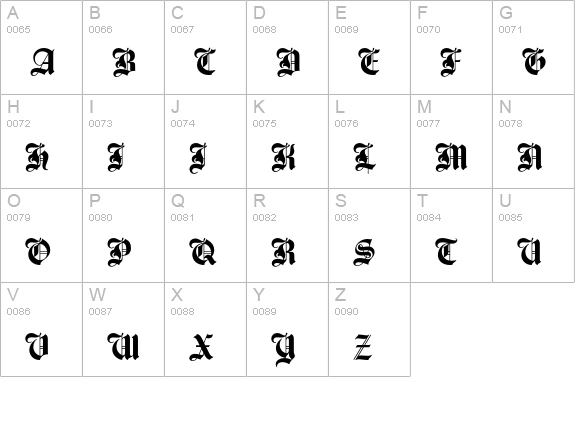
Agincourt Std Regular is the standard, neutral variant in the Agincourt typeface family \xE2\x80\x94 well suited to general body text, paragraphs, and standard typographic work.
Agincourt Std Regular font is a timeless and elegant typeface that exudes sophistication and class. With its classic and versatile design, this font is perfect for a wide range of design projects, from invitations to branding to editorial content. Its clean lines and balanced proportions make it easy to read and visually appealing. What makes Agincourt Std Regular font even more appealing is that it is free to download at FontsMarket.com. Whether you are a designer looking to add a touch of refinement to your work or a business owner in need of a professional font for your brand, Agincourt Std Regular is a fantastic choice. Download it today and elevate your design projects to the next level with this exquisite font.